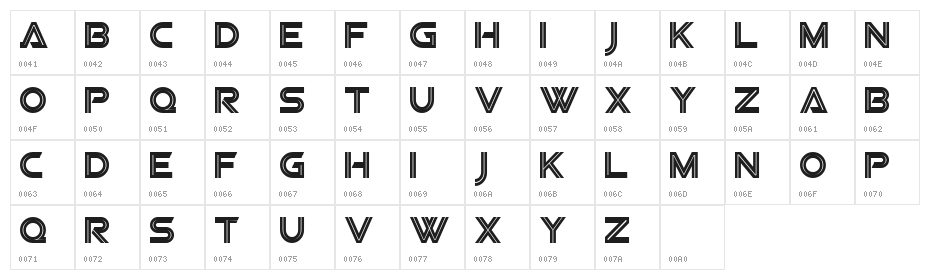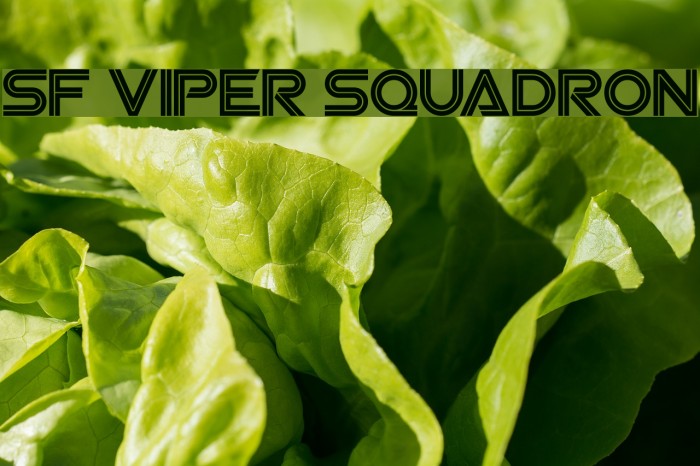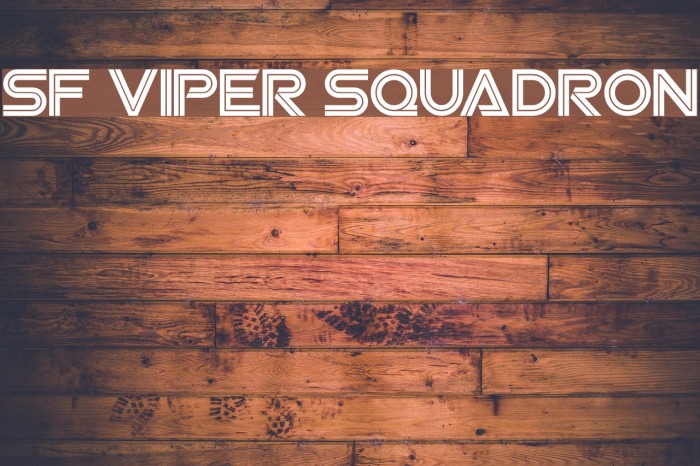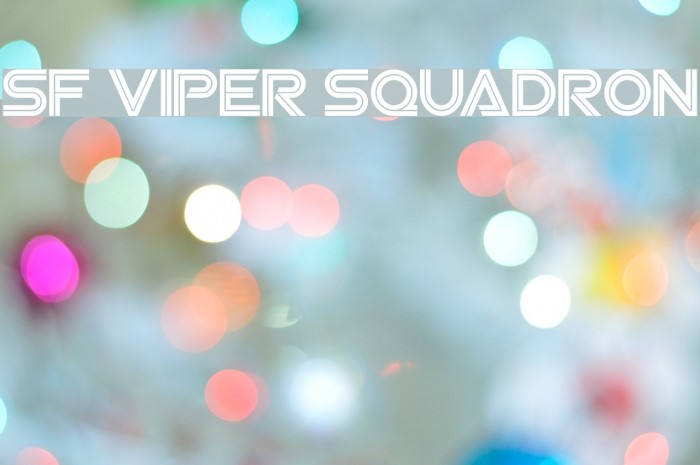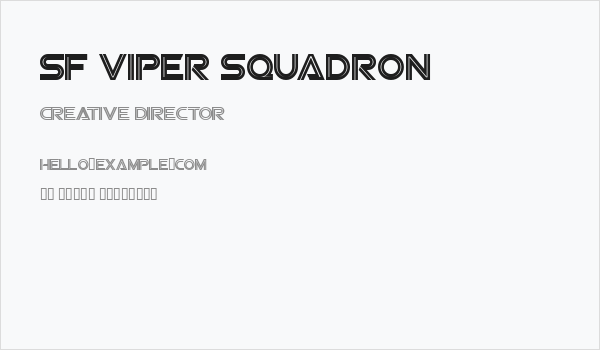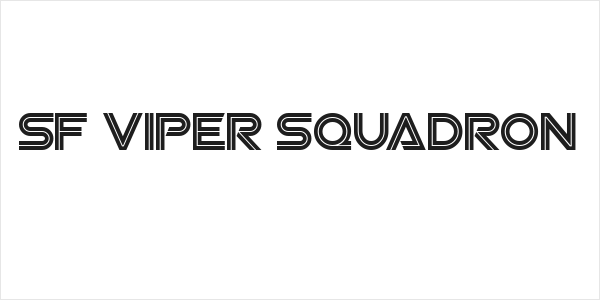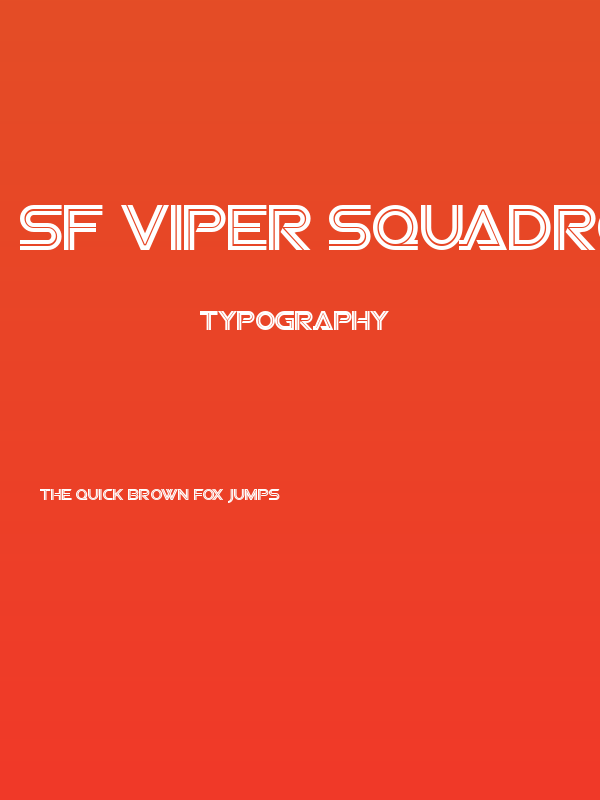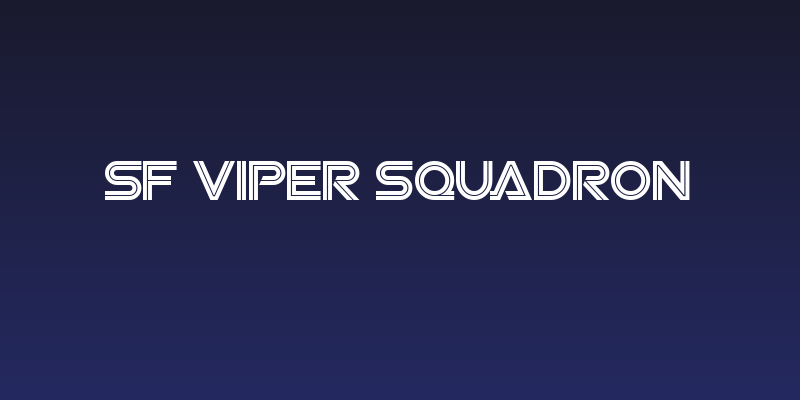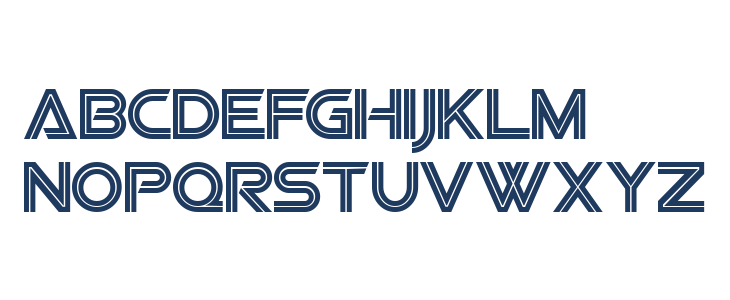
SF Viper Squadron Font
SF Viper Squadron Description
This font features a bold, geometric design with a futuristic flair. Each character is constructed with multiple parallel lines, creating a sense of depth and movement. The angular shapes and sharp edges give it a dynamic and modern appearance, making it ideal for projects that require a strong visual impact. The uppercase letters are particularly striking, with their intricate line work and bold presence. The font's unique style is reminiscent of science fiction and technology themes, making it suitable for use in digital media, gaming, and branding that seeks to convey innovation and forward-thinking.
| Proposed Projects | Ideal for digital media, gaming titles, technology branding, and futuristic-themed designs. |